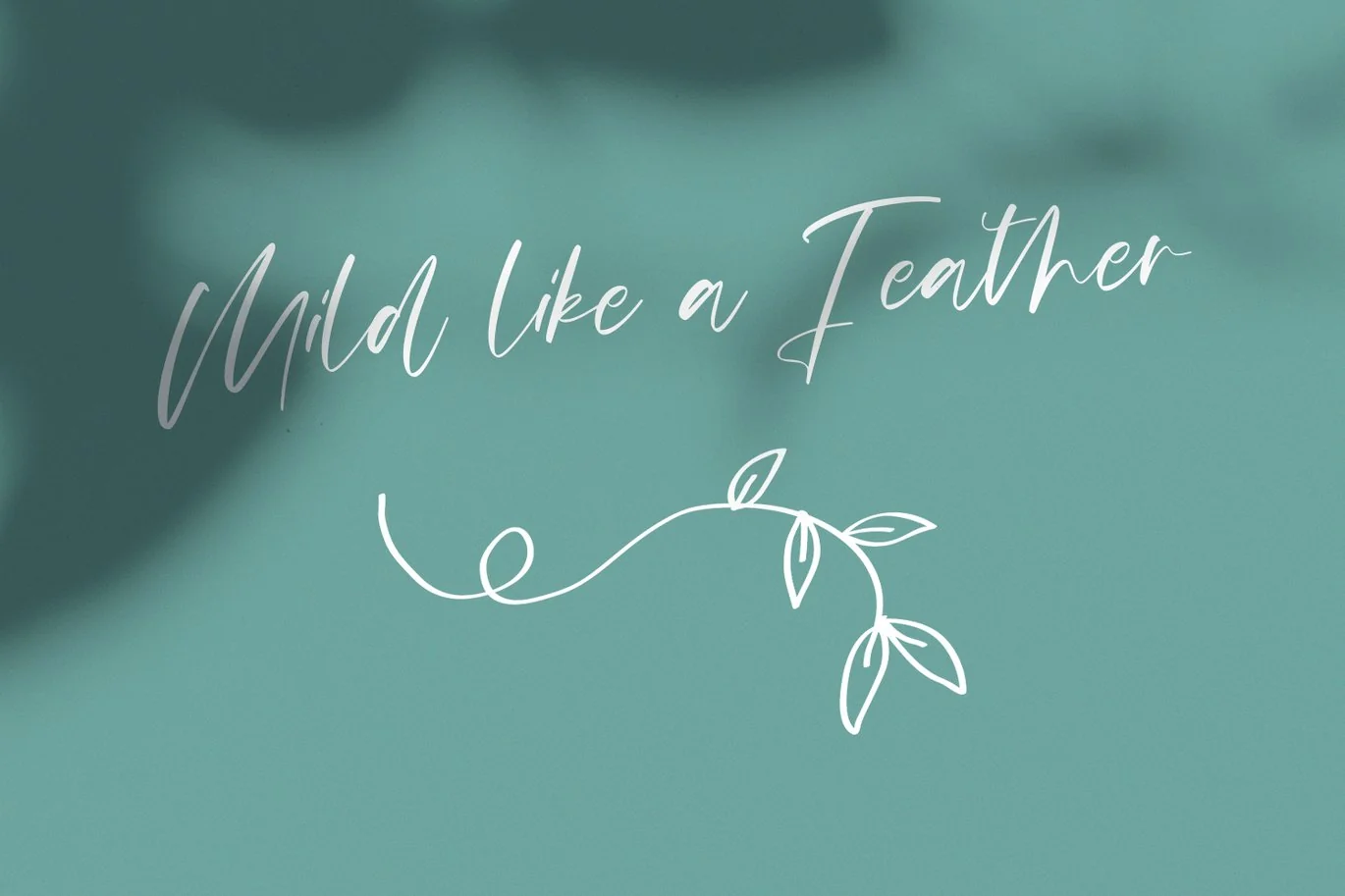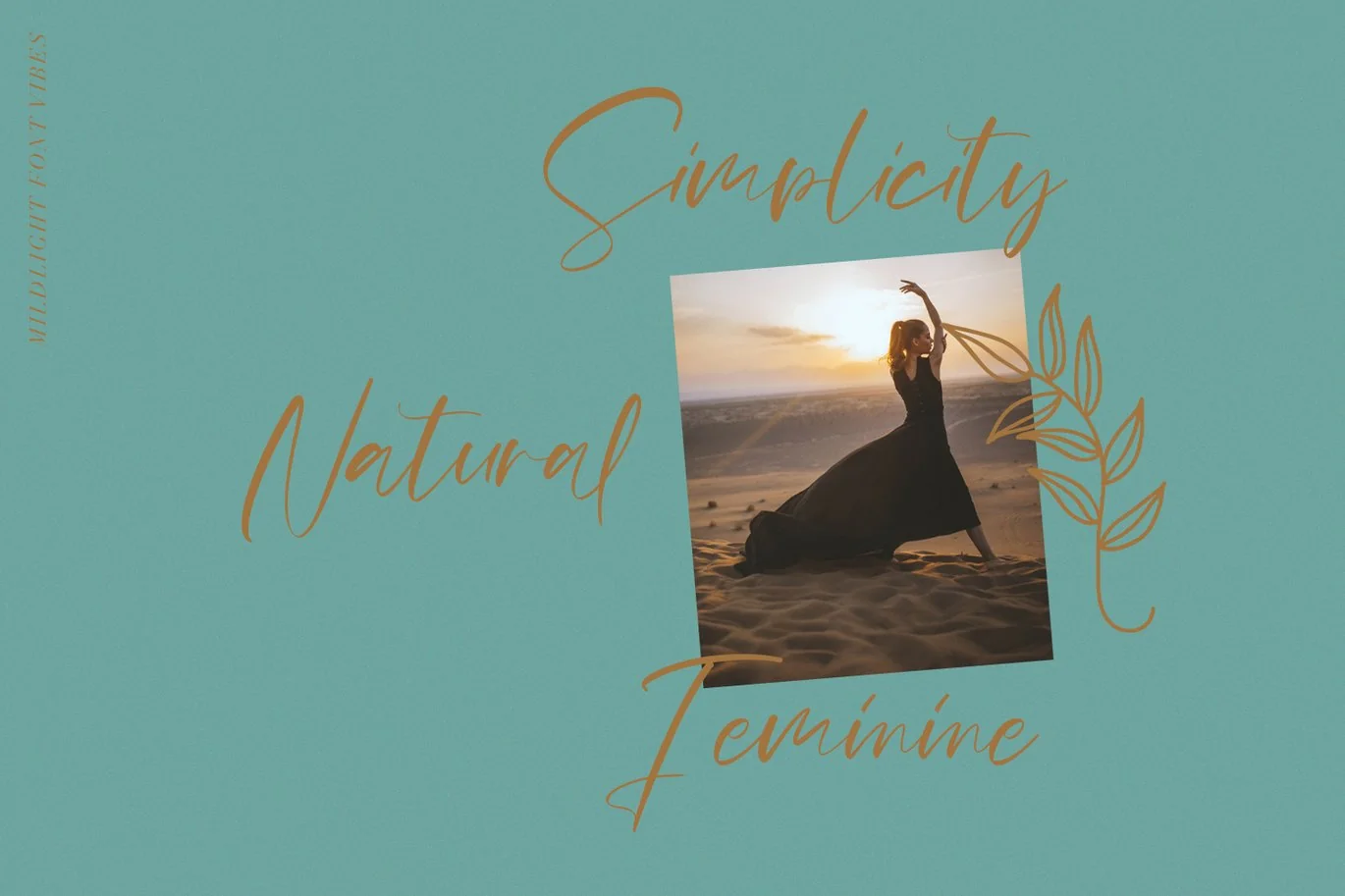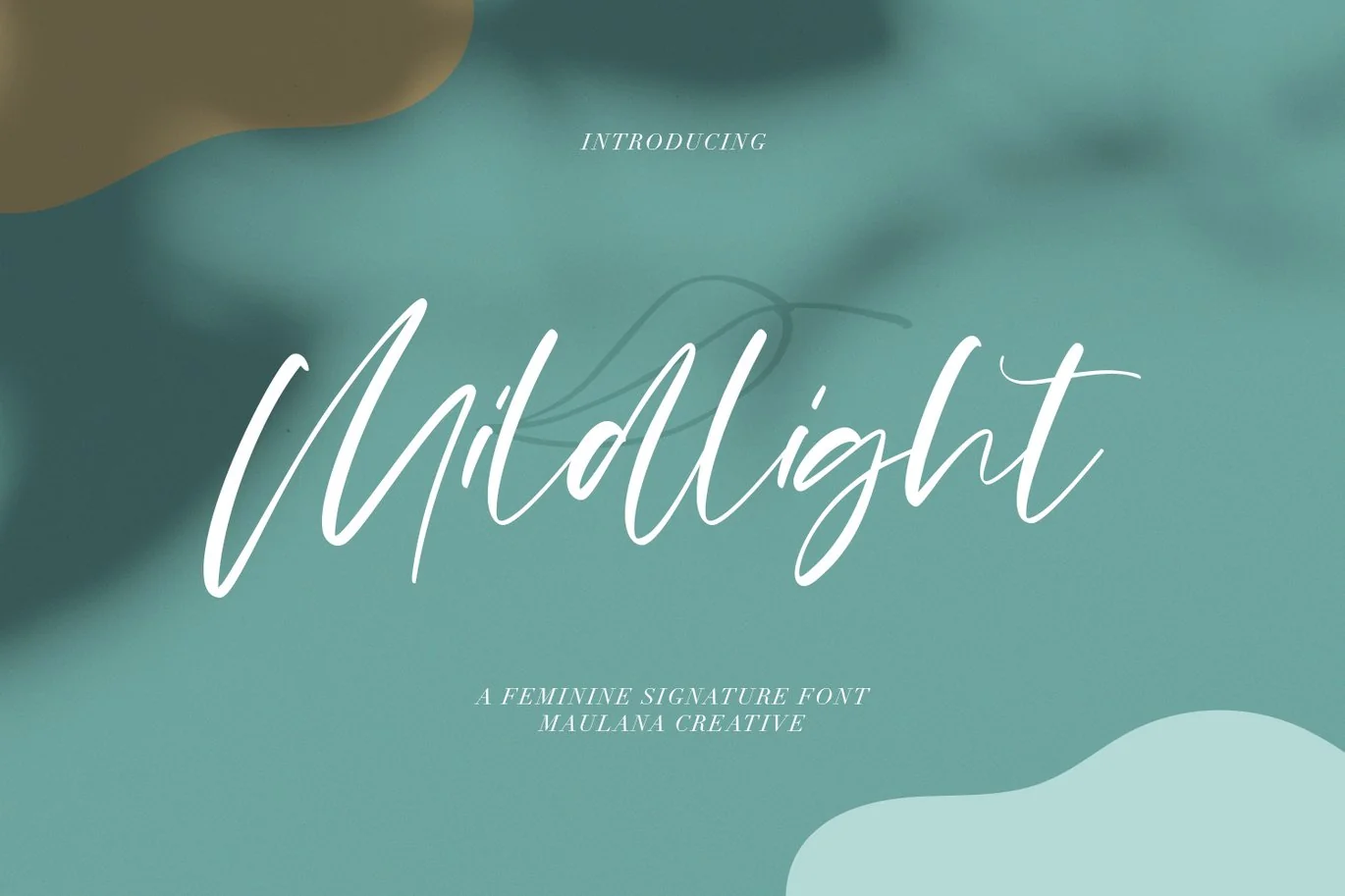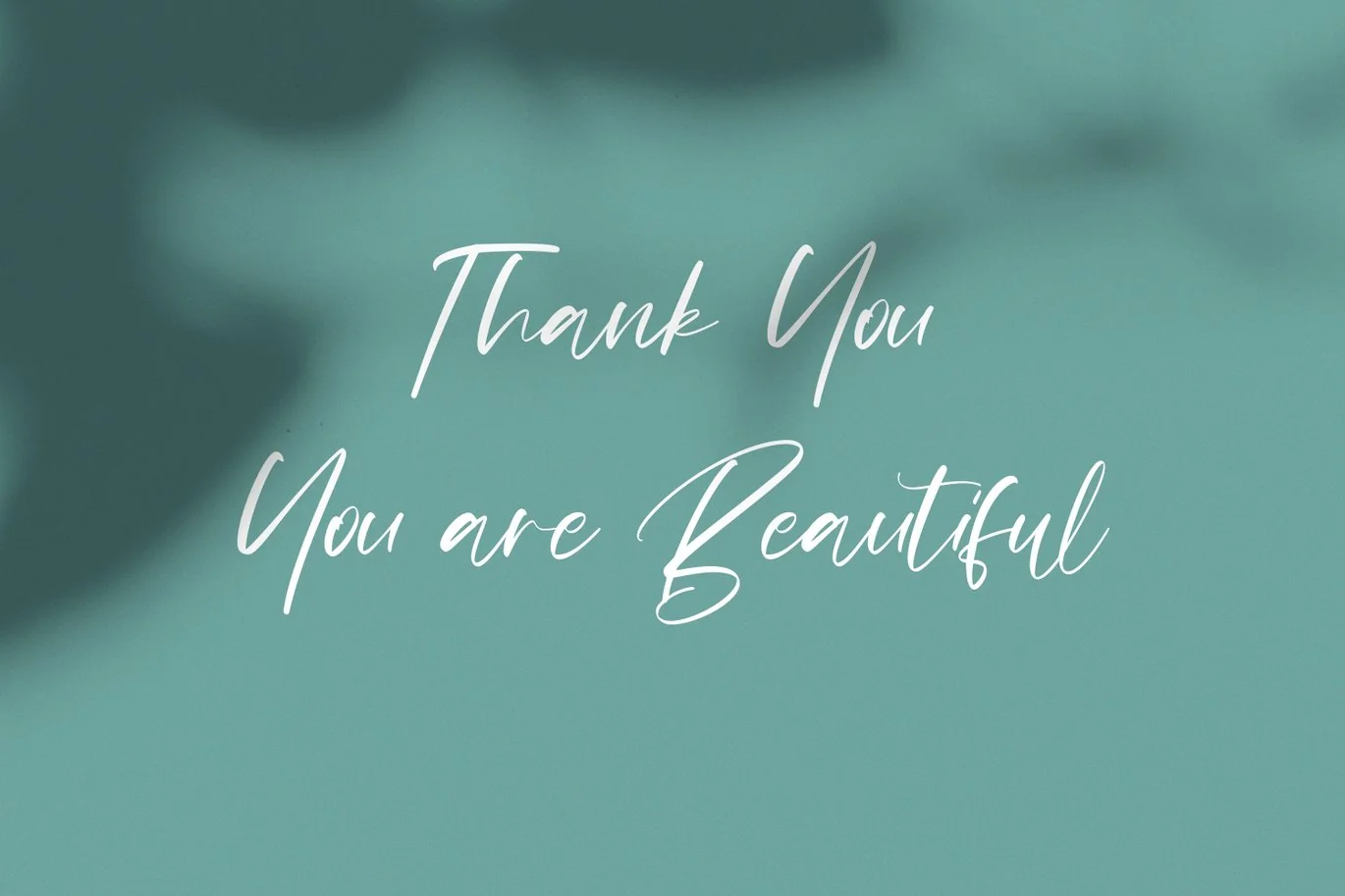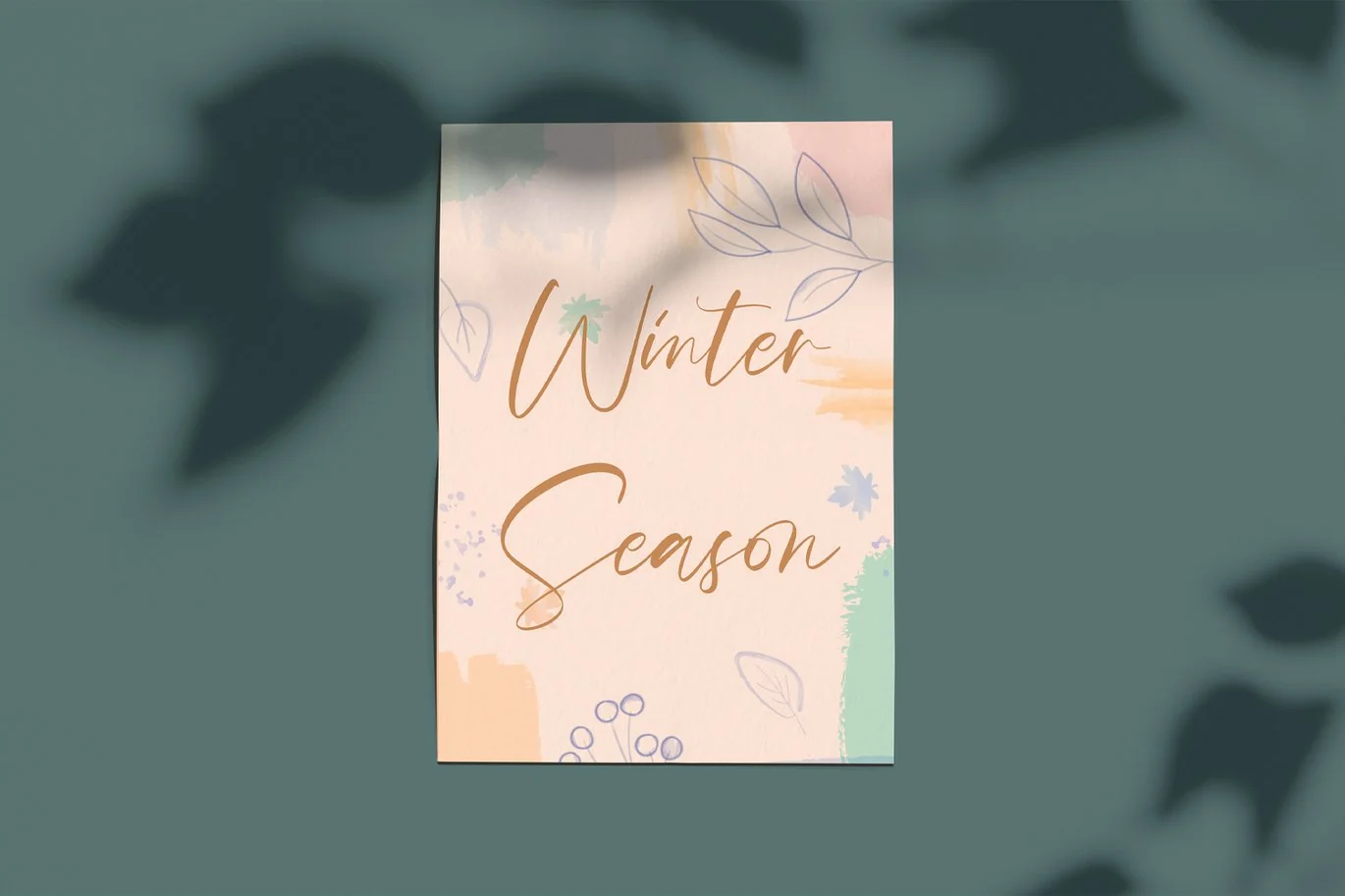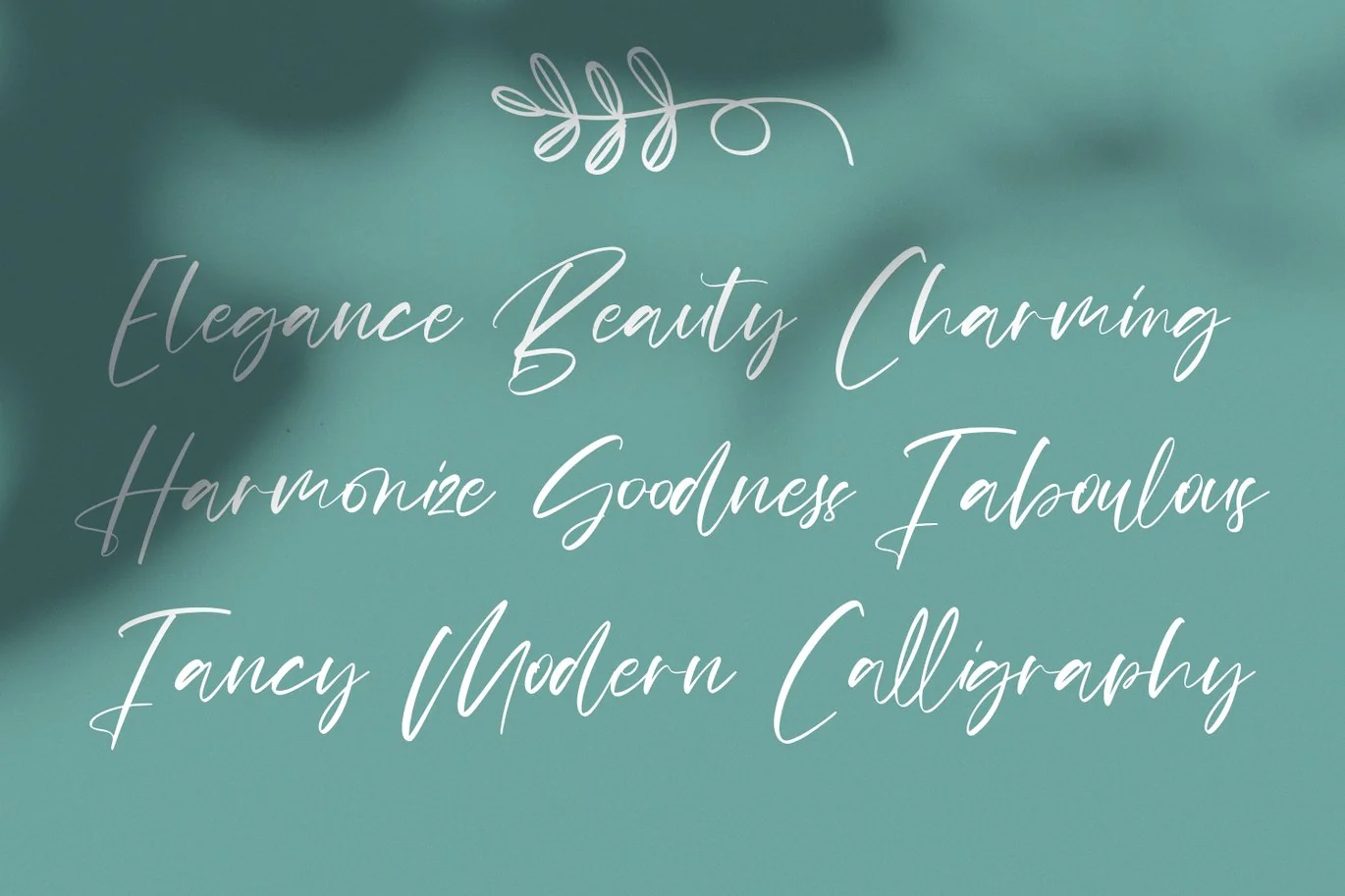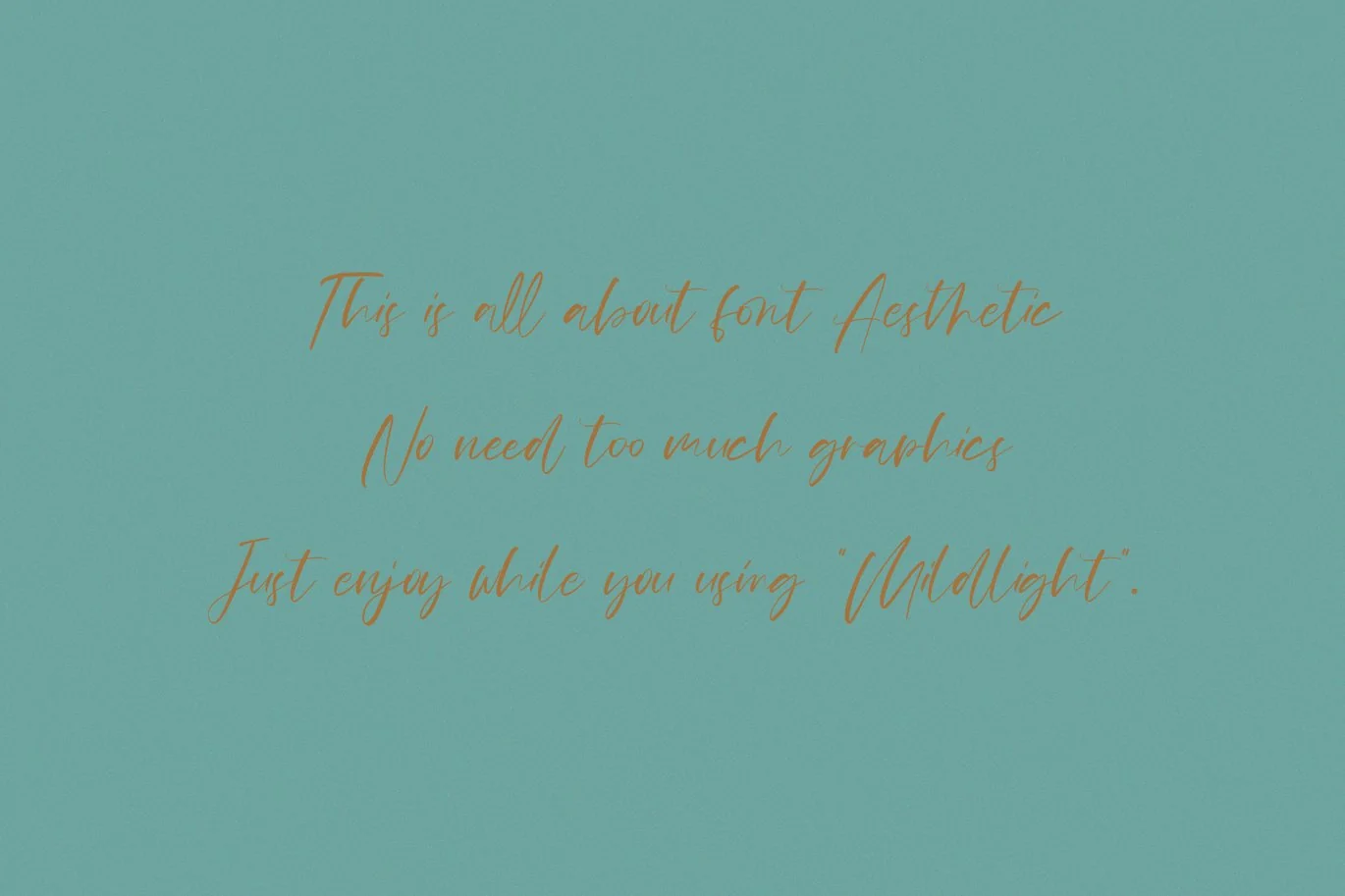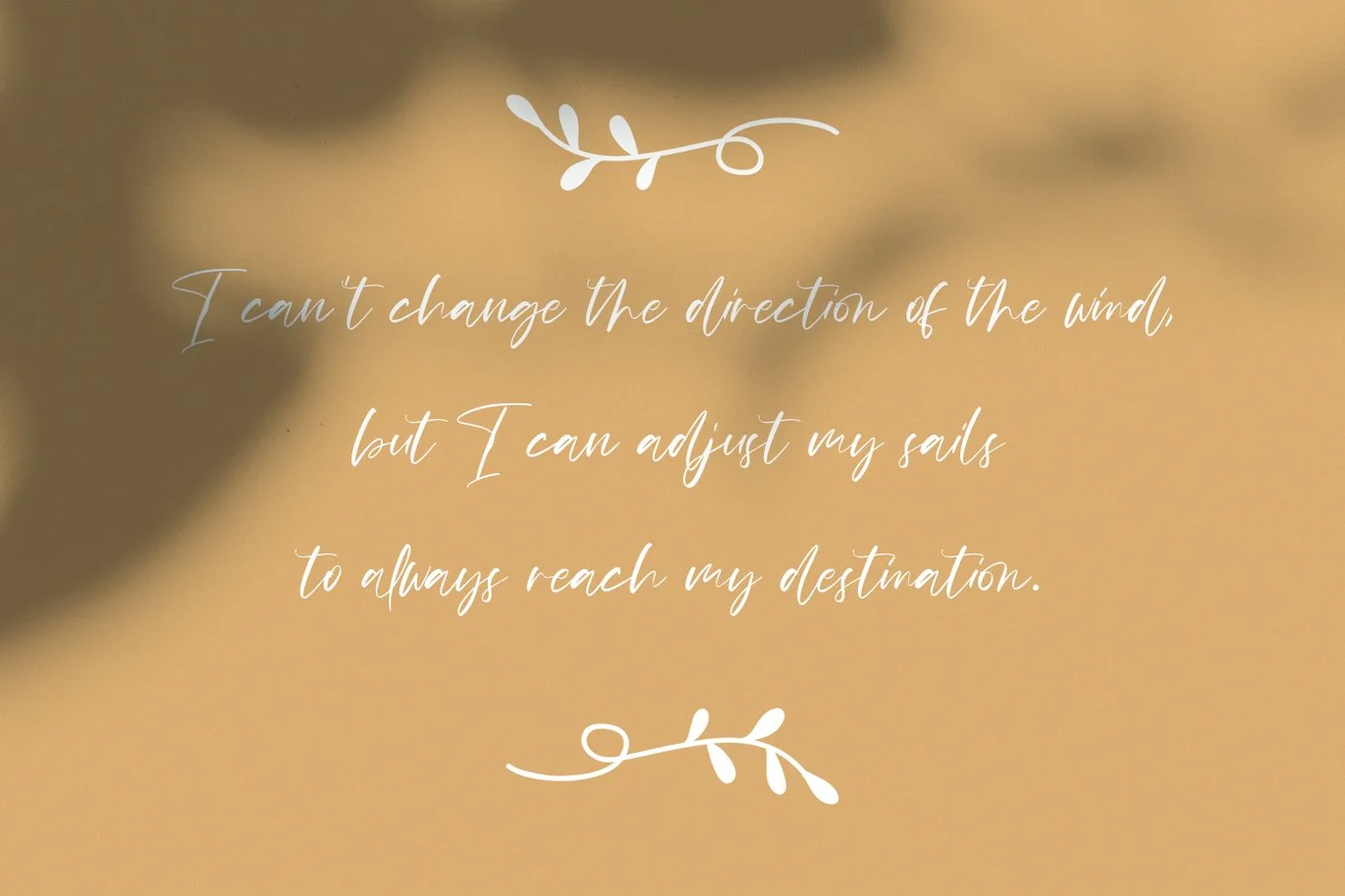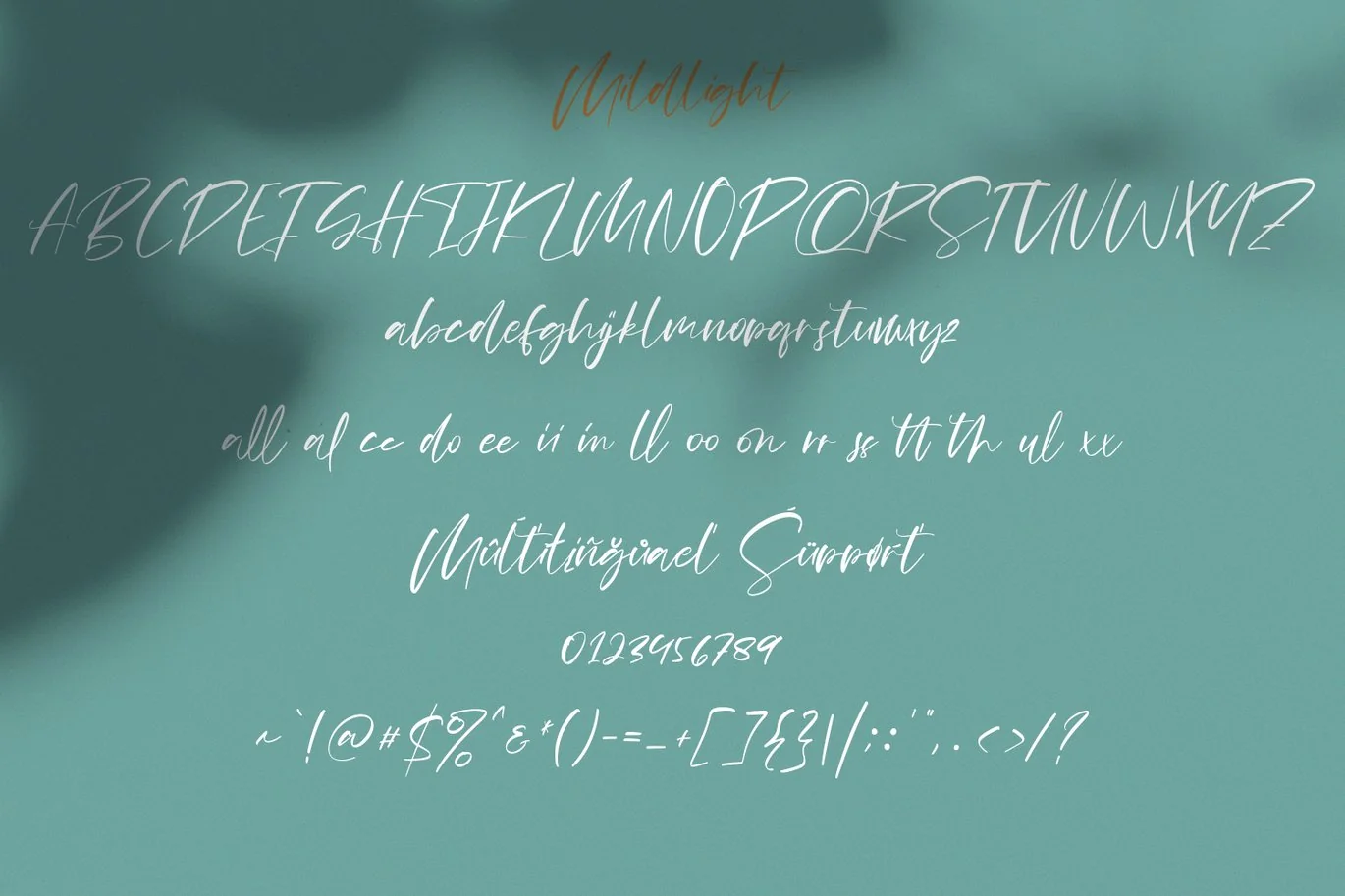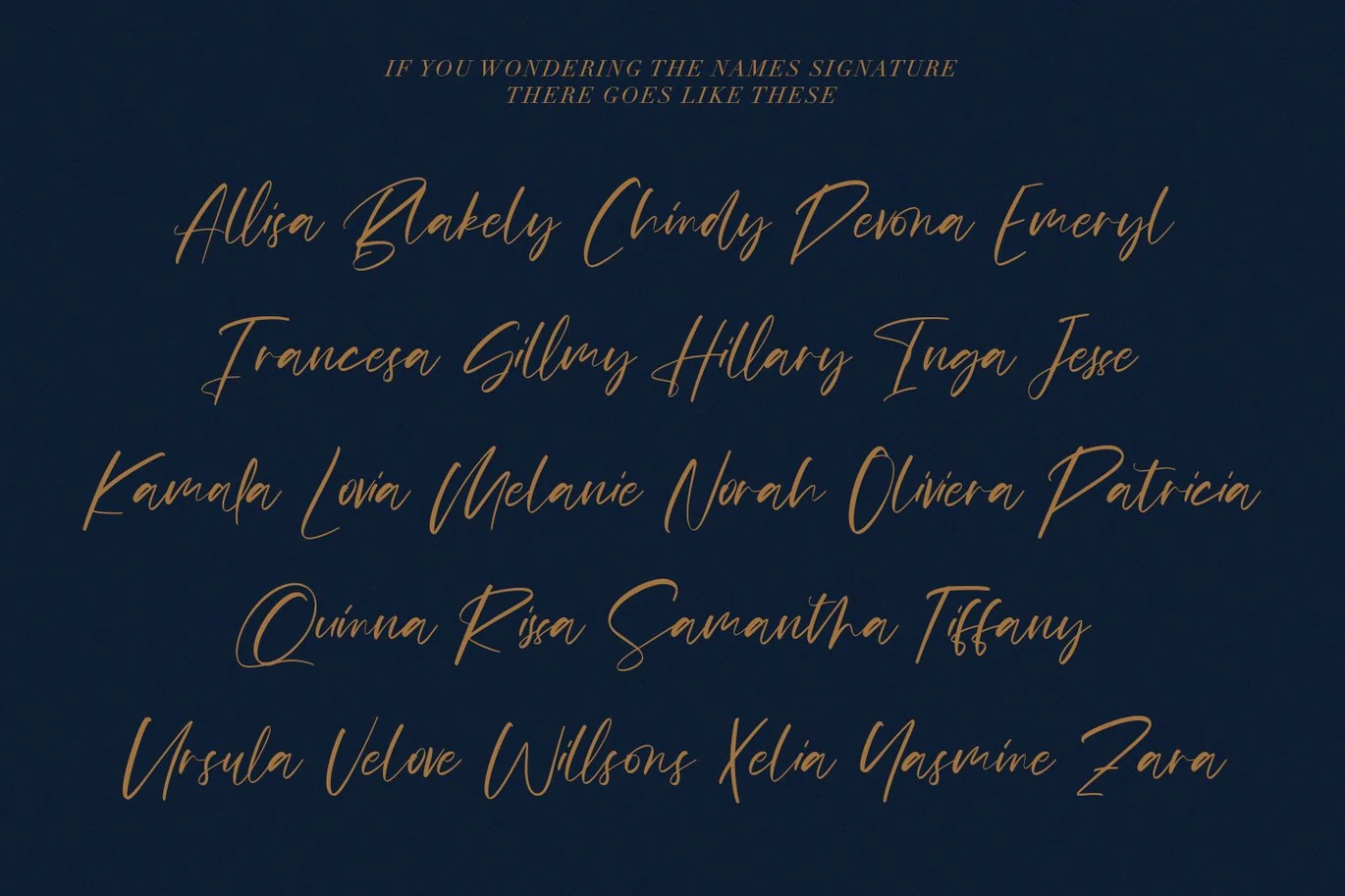
Mildlight Feminine Signature Font
Give your designs an authentic handcrafted feel. “Mildlight Feminine Signature Font” is perfectly suited to signature, stationery, logo, typography quotes, magazine or book cover, website header, clothing, branding, packaging design and more.